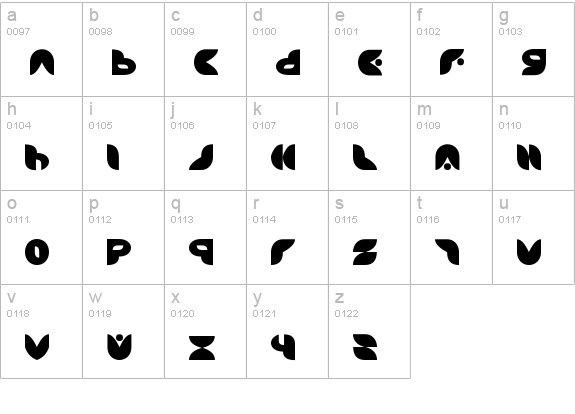
Puff Angel font is a whimsical and charming typeface that exudes a sense of lightness and enchantment. With its delicate curves and airy design, this font is perfect for adding a touch of playfulness to your projects. The soft, rounded edges give Puff Angel a friendly and approachable look, making it ideal for a variety of creative endeavors. Best of all, Puff Angel font is completely free to download at FontsMarket.com. Whether you're working on a design project, crafting invitations, or simply looking to add a touch of magic to your creations, Puff Angel is a versatile and delightful font that is sure to capture hearts and inspire imagination. Download it today and let your creativity soar with Puff Angel font!